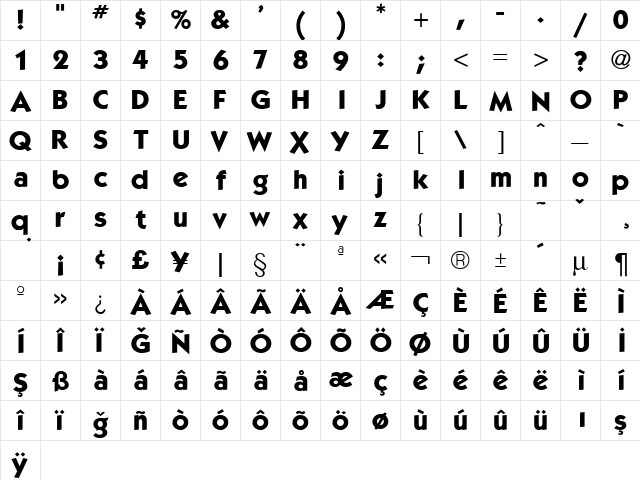
Kabana Bold Regular
Design Context for Kabana Bold Typeface
Kabana Bold offers clean, dependable letterforms without strong stylistic allegiance, making it a practical choice for designers who need flexibility. The heavy weight commands attention and anchors typographic hierarchies.
Pro Tip: Use Kabana Bold in both headline and body roles to test its range before committing to a single application.